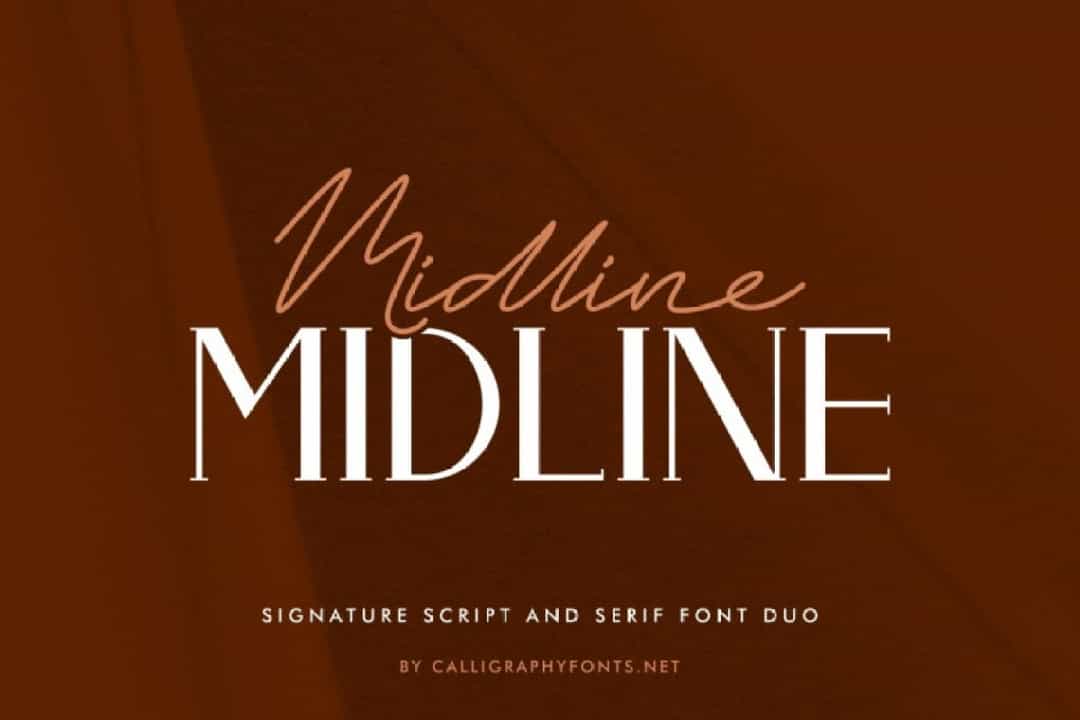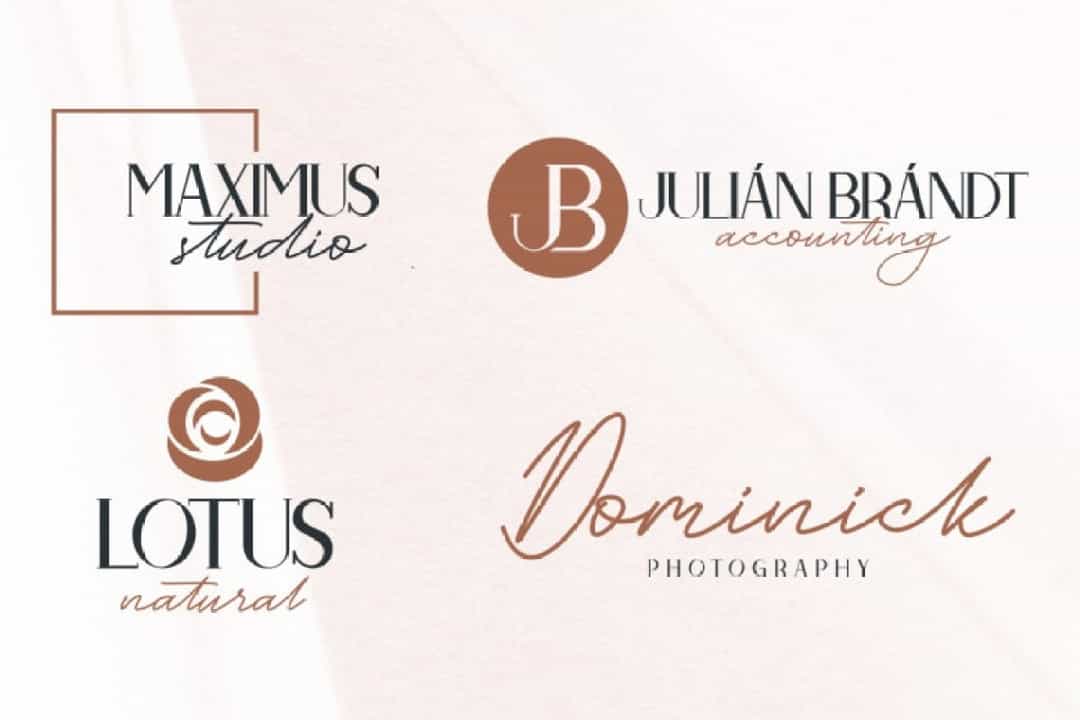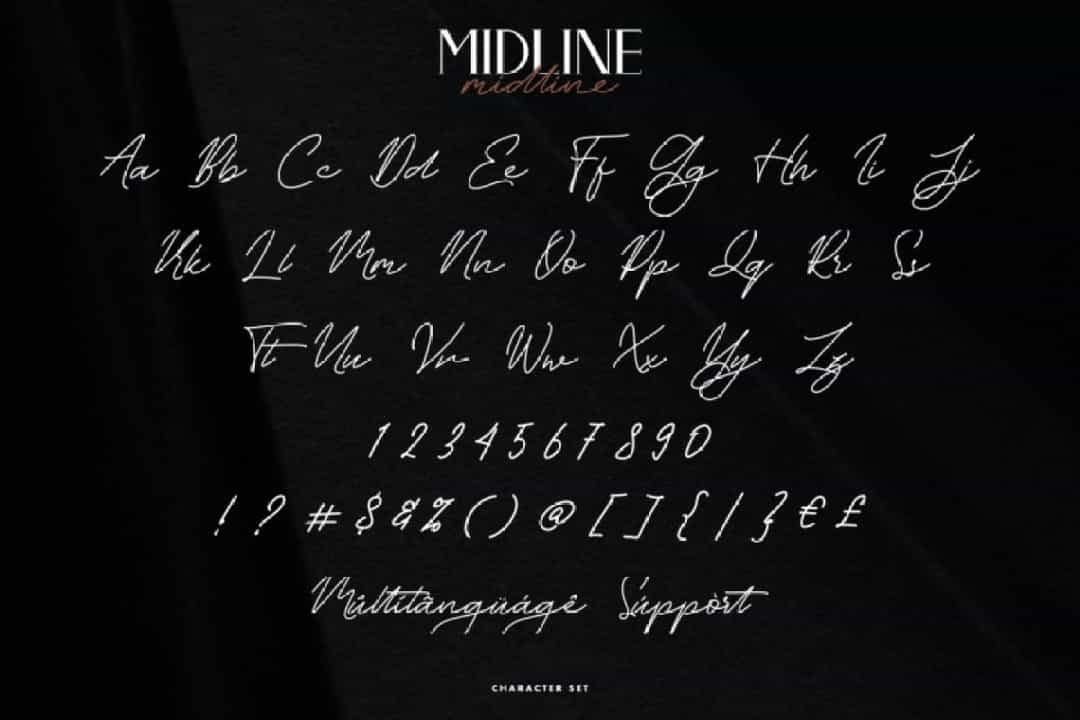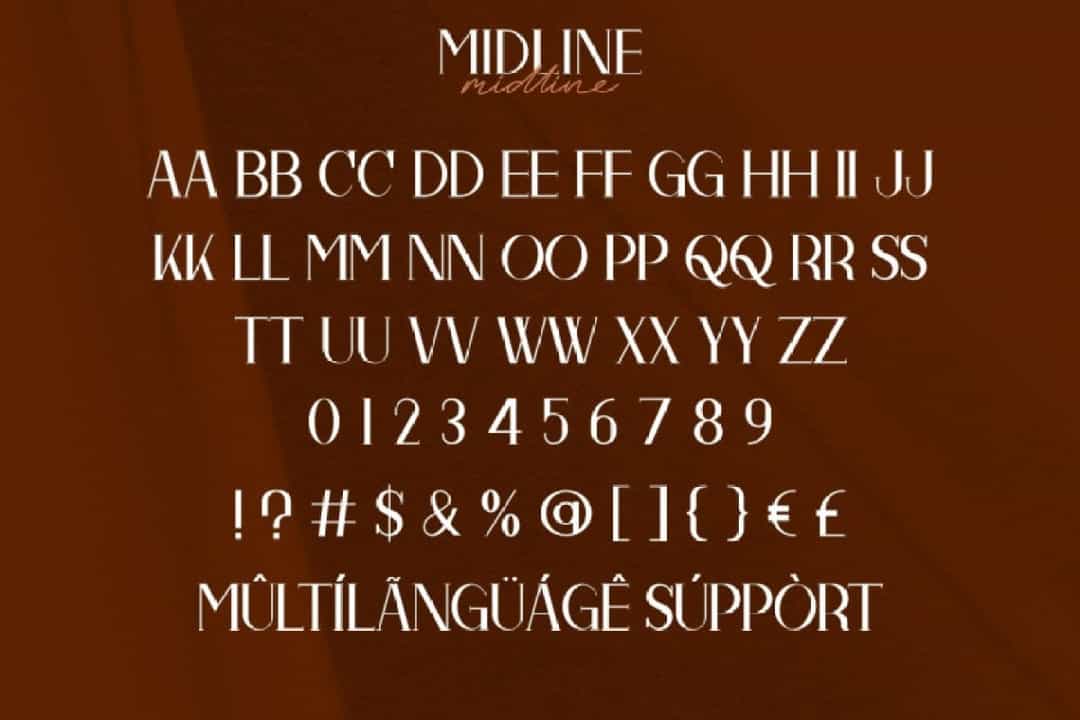
Midline Font duo is made up of two font styles, namely the serif show and the Signature script. Thus, the style of the font can be characterized as minimalistic contemporary, modern, elegant, luxurious glamour classic, or simply lettering.